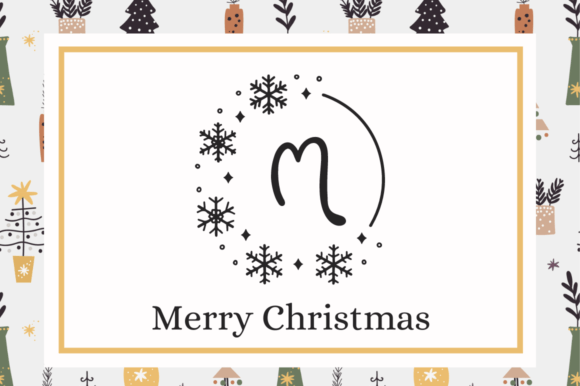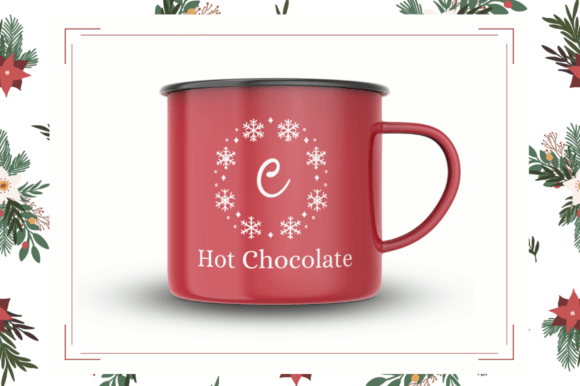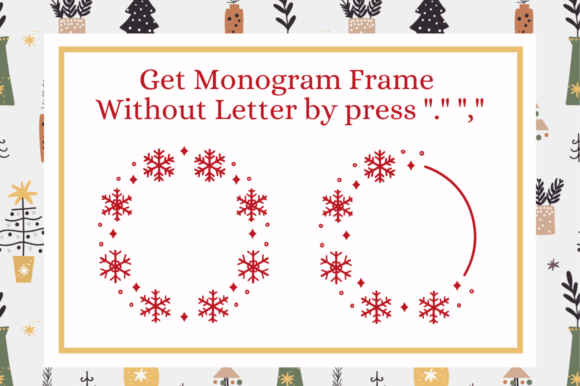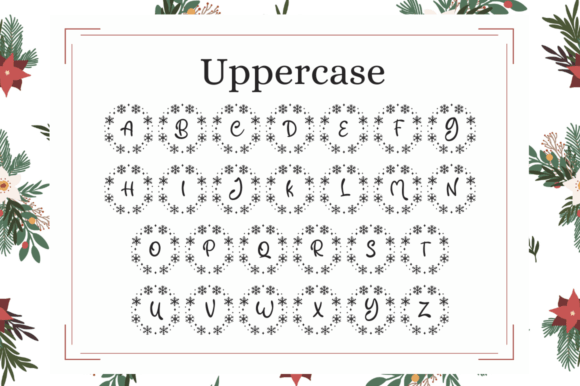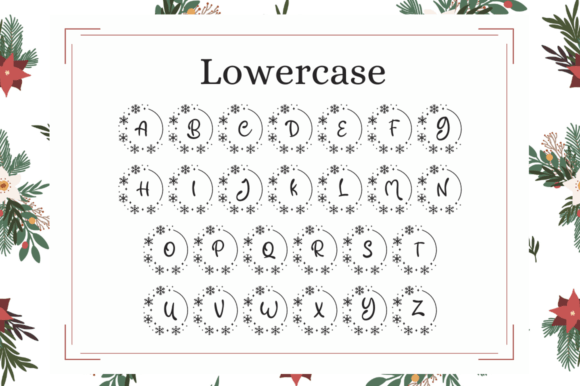
Deck the Halls with a Good Christmas Monogram Font
Are you searching for the perfect Christmas monogram font to add a touch of holiday cheer to your designs? Look no further! A Good Christmas Monogram Font is a fantastic addition to any designer’s toolkit, offering a Christmas and winter-themed monogram font that’s perfect for creating stunning visual content. In this article, we’ll dive into the features and benefits of this amazing font, and explore how you can use it to elevate your designs.
What is a Good Christmas Monogram Font?
A Good Christmas Monogram Font is a specially designed monogram font that captures the essence of Christmas and winter. This font is perfect for creating beautiful and festive monograms that can be used for a variety of purposes, including Christmas special occasions, business designs, logos, branding, social media posts, and wedding cards.
Key Features of Good Christmas Monogram Font
This fantastic font comes with two Christmas styles, allowing you to experiment with different looks and feels. The best part? You can easily switch between uppercase and lowercase letters to see the different styles! This versatility makes it easy to use the font in a wide range of designs, from elegant and sophisticated to playful and fun.
So, what makes Good Christmas Monogram Font a must-have for designers and crafters? Here are just a few benefits:
- Ease of use: With its simple uppercase and lowercase style switching, you can quickly create beautiful monograms without needing advanced design skills.
- Versatility: Use the font for a wide range of projects, from Christmas cards and decorations to business branding and social media graphics.
- Festive flair: Add a touch of holiday magic to your designs with this festive and fun font.
- Time-saving: With a pre-designed font, you can save time and effort that would be spent creating monograms from scratch.
Using Good Christmas Monogram Font in Your Designs
So, how can you use Good Christmas Monogram Font in your designs? Here are a few ideas to get you started:
- Christmas cards and invitations: Create beautiful and festive monograms for your holiday cards and invitations.
- Business branding: Add a touch of holiday cheer to your business branding with custom monograms and logos.
- Social media graphics: Use the font to create eye-catching social media graphics that showcase your holiday spirit.
- Wedding cards and decorations: Create beautiful and elegant monograms for winter weddings and holiday decorations.
Tips and Tricks for Working with Good Christmas Monogram Font
Here are a few tips and tricks to help you get the most out of Good Christmas Monogram Font:
- Experiment with different styles: Try out different uppercase and lowercase combinations to see which style works best for your design.
- Pair with complementary fonts: Pair Good Christmas Monogram Font with complementary fonts to create a unique and visually appealing design.
- Use in combination with other design elements: Combine the font with other design elements, such as images and graphics, to create a stunning visual effect.
In conclusion, Good Christmas Monogram Font is a fantastic addition to any designer’s toolkit. With its two Christmas styles, ease of use, and versatility, this font is perfect for creating stunning visual content for the holiday season. Whether you’re a designer, crafter, or simply someone who loves the holiday season, Good Christmas Monogram Font is a must-have for adding a touch of festive flair to your designs.